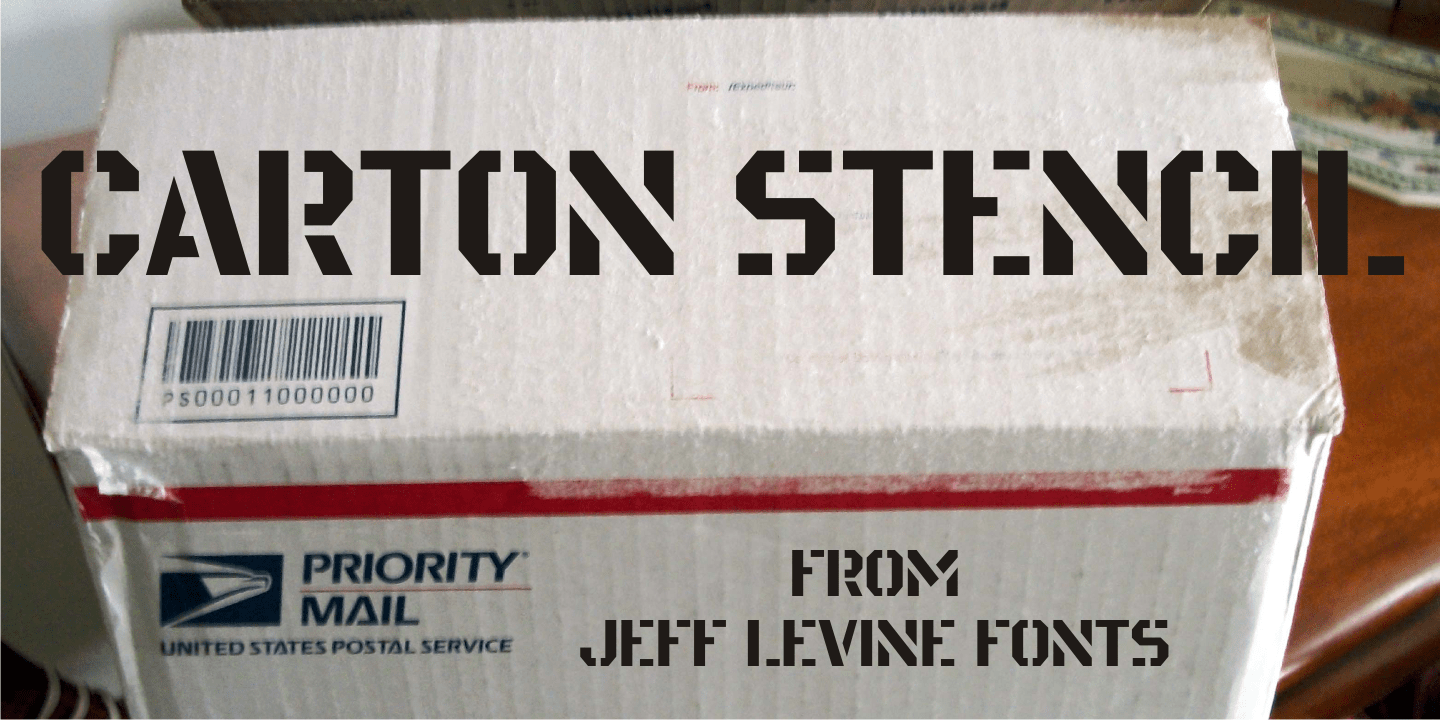
Carton Stencil
Antique brass stencils hand-cut for shipping items during the early part of the 20th Century were for sale in an online auction; and are the basis for Carton Stencil JNL.
Carton Stencil JNL Regular by Jeff Levine Fonts